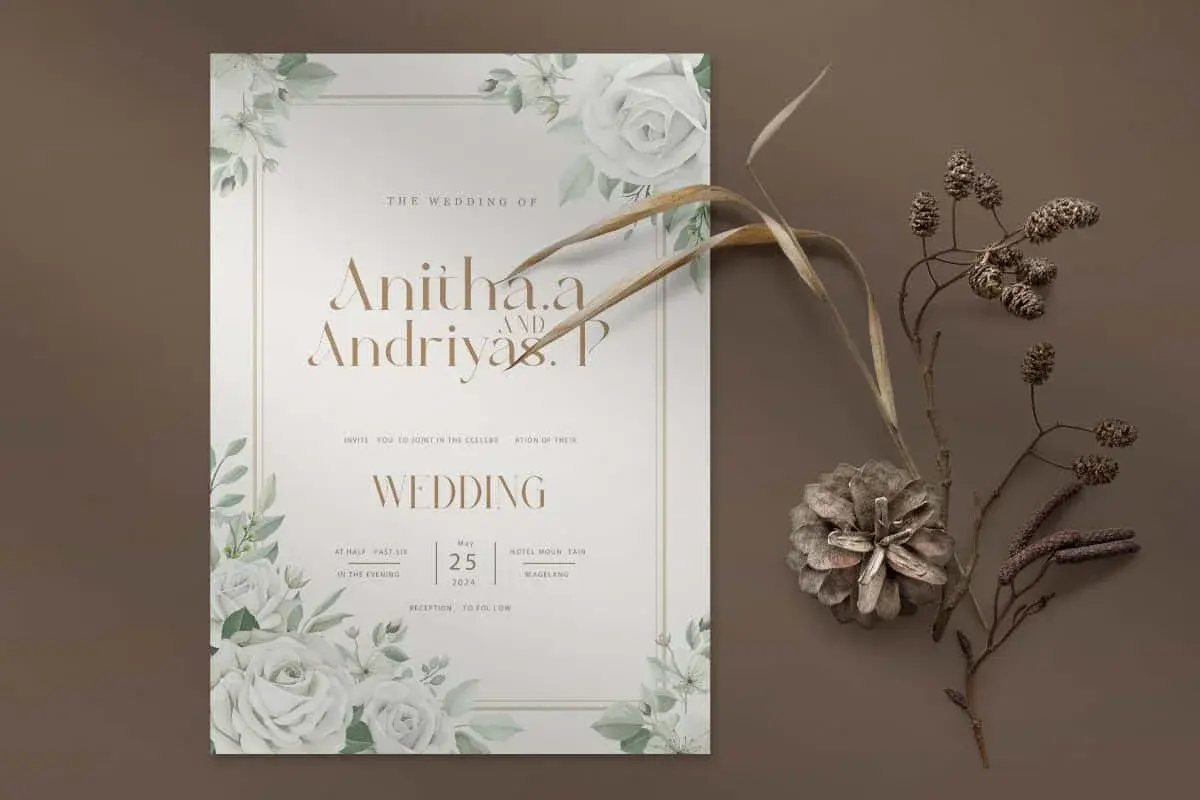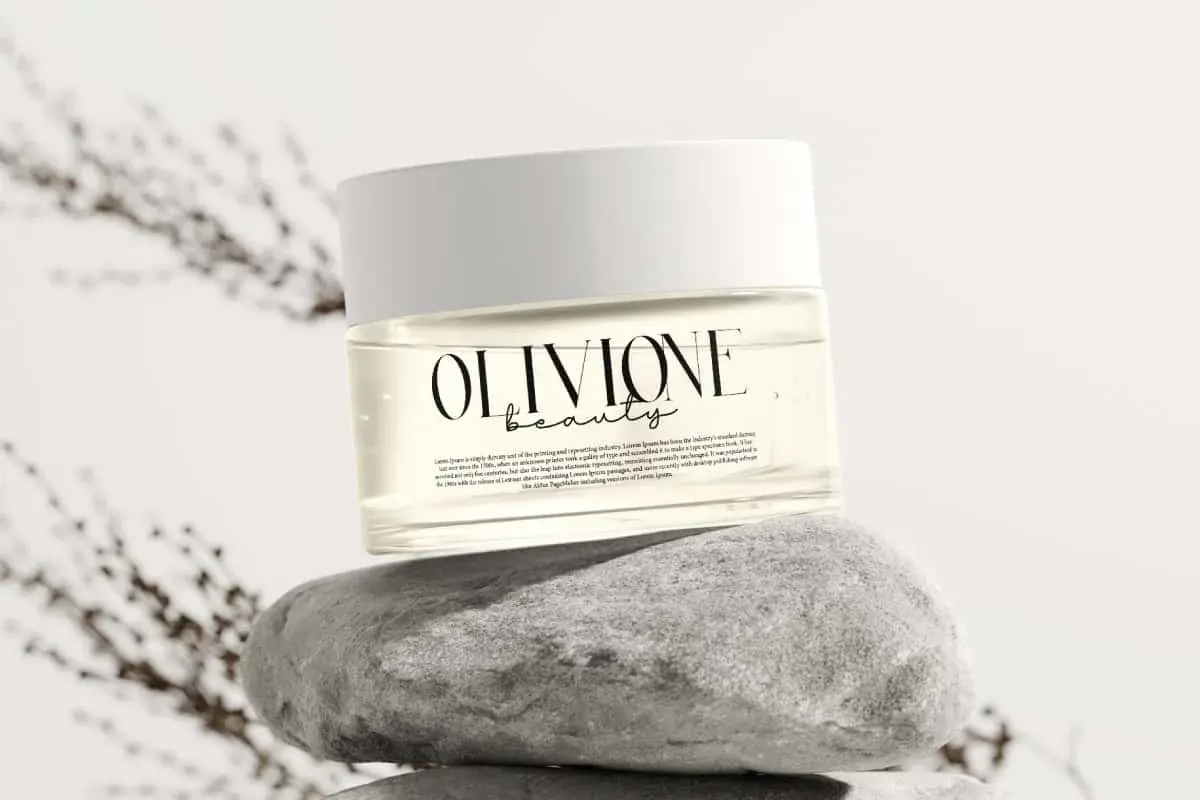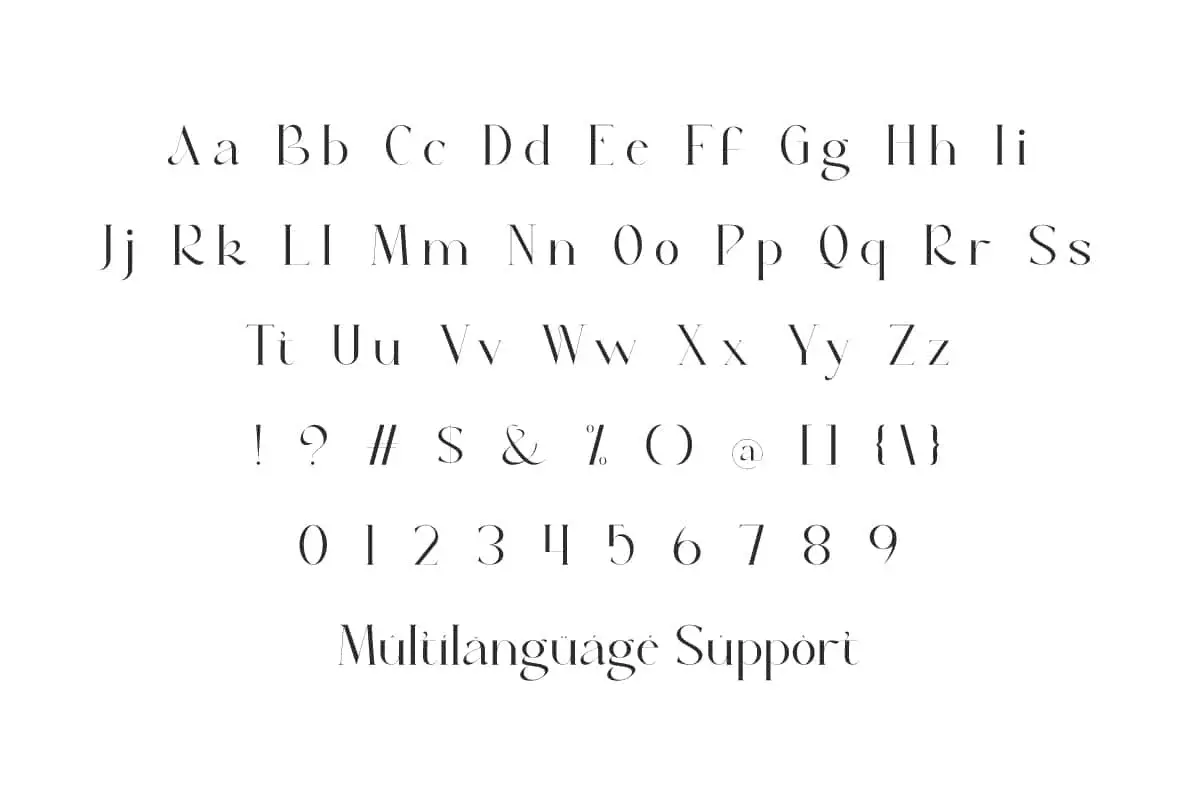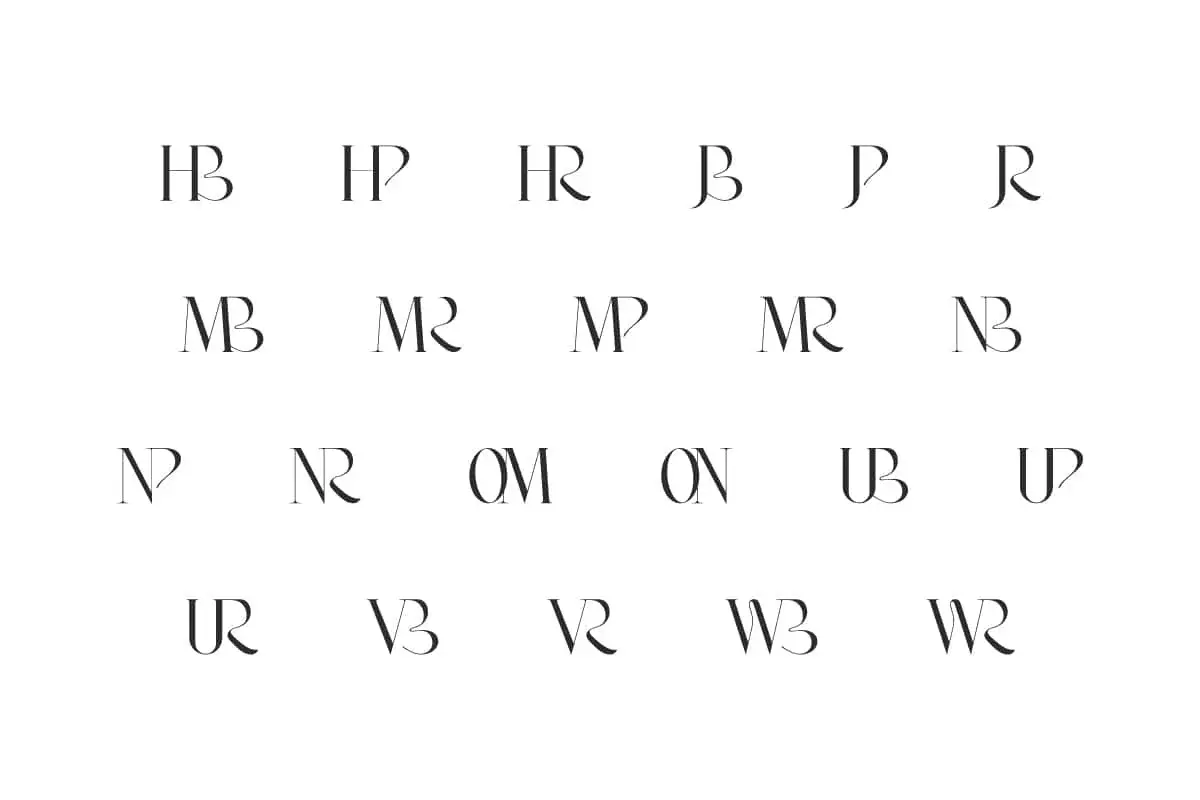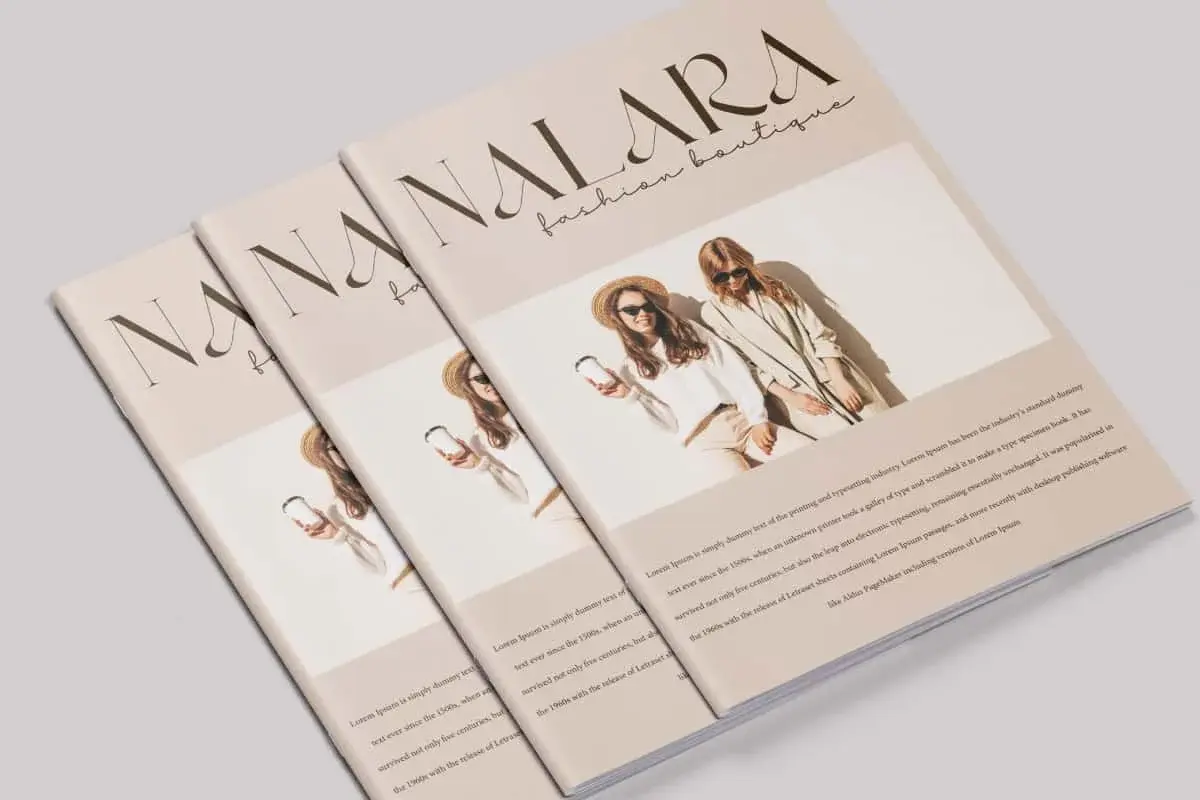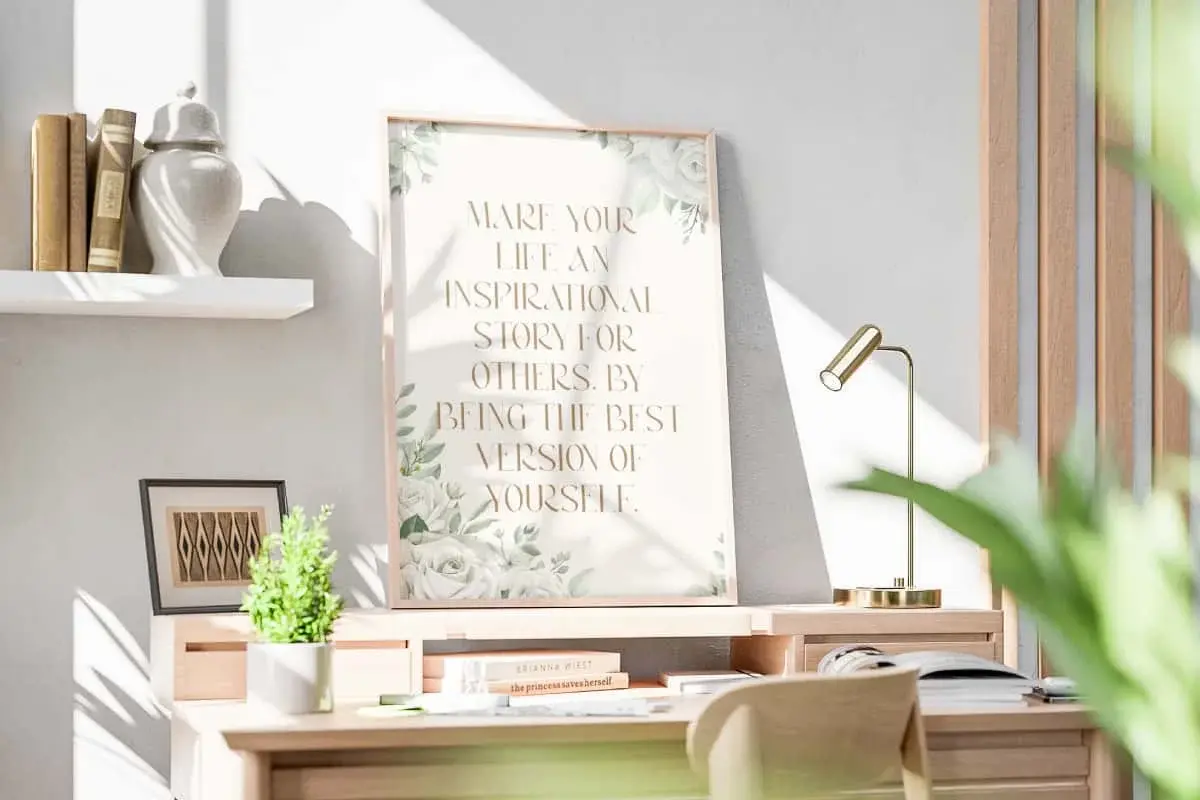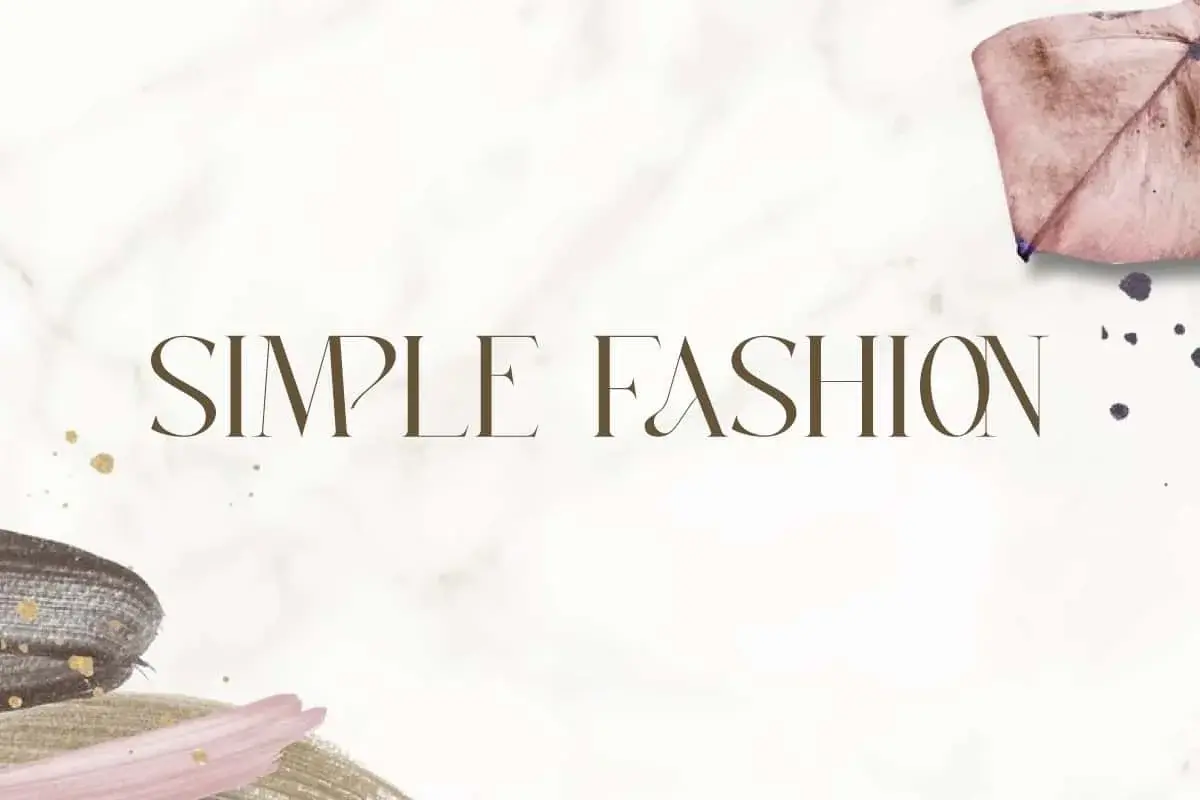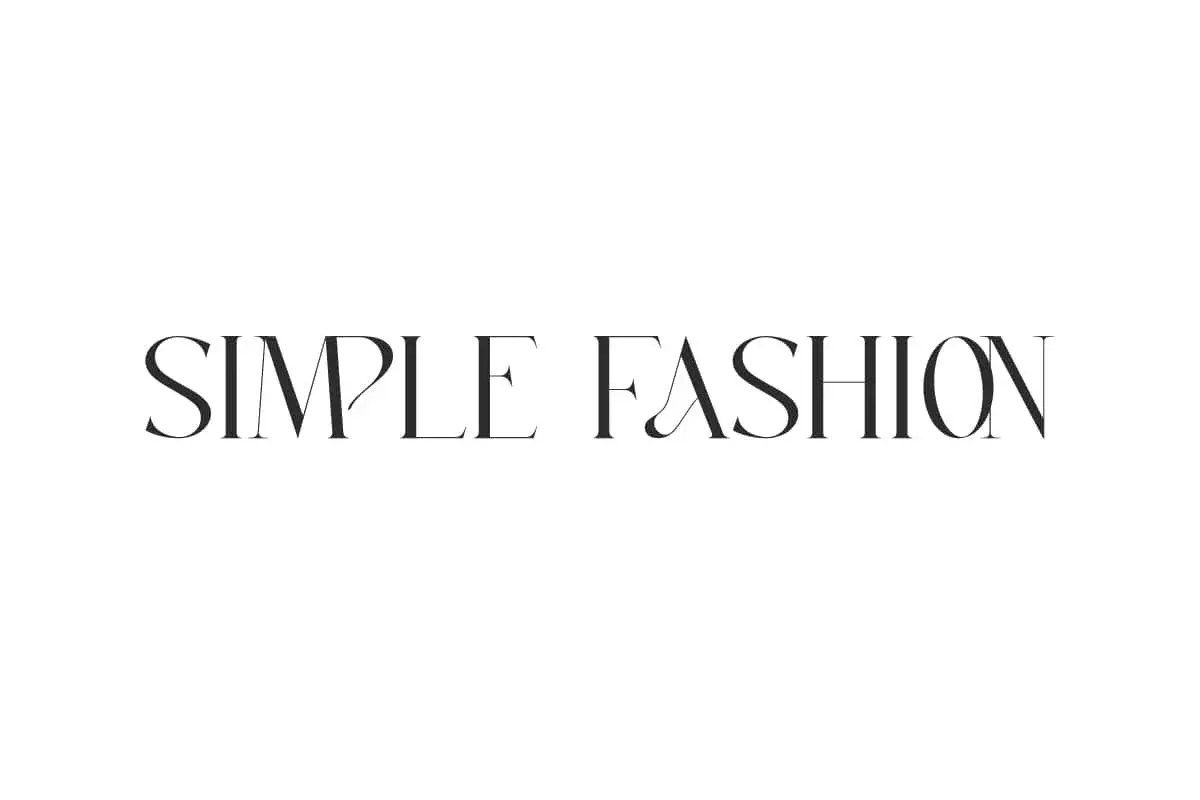
Simple Fashion Font is a modern serif look with a unique and classy touch. As a beautiful typeface it can be adapted for whatever project and work you want.
Simple Fashion Font is a beautiful and classy serif display that will complement any design project you want. Equipped with ligature characters that are made playful and elegant, adding a special element to the font. Perfect for craft, fashion boutique, home furniture, publisher, skincare, wedding, etc.
Simple Fashion Font includes full set of Uppercase and Lowercase Basic Characters, Numbers, Punctuation, Symbols and Ligature. Modern typography that epitomizes luxury and elegance at a glance. Perfectly crafted for sophisticated designs that require a touch of class. Use this for banners, blogs, covers, invitation, label, logos, quotes, sticker, watermark, website, and many more.